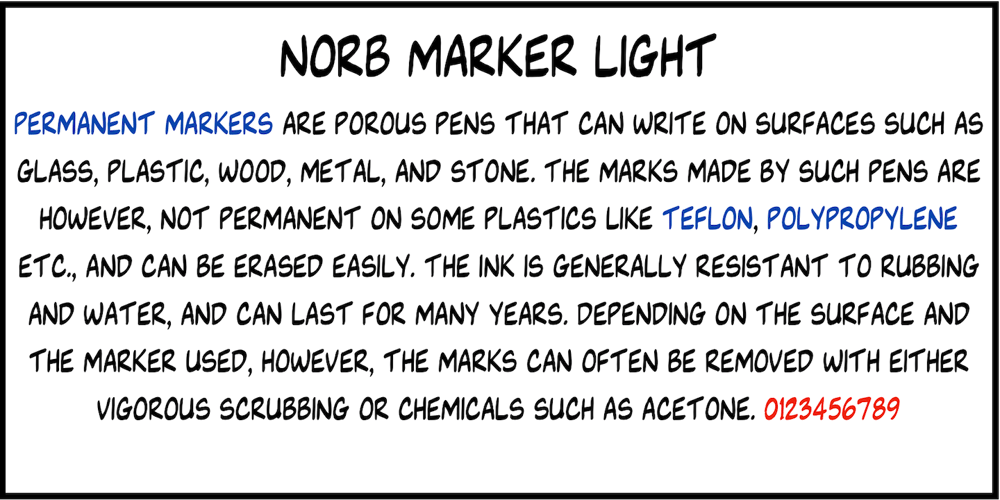
NorB Marker Font Family was designed by Nor Eddine Bahha and published by NorFonts. NorB Marker contains 6 styles and family package options. NorB Marker is a handwritten text font emulating a marker pen. The fonts set can be used with any word processing program for text and display use, print and web projects, apps and ePub, comic books, graphic identities, branding, editorial, advertising, scrapbooking, cards and invitations and any casual lettering purpose… or even just for fun!The fonts set features 4 weights: Regular Italic Bold Bold Italic